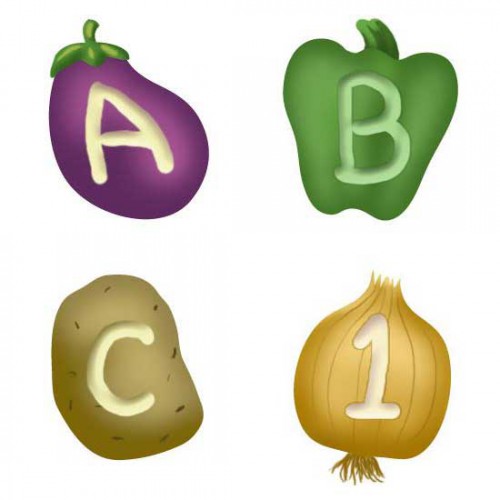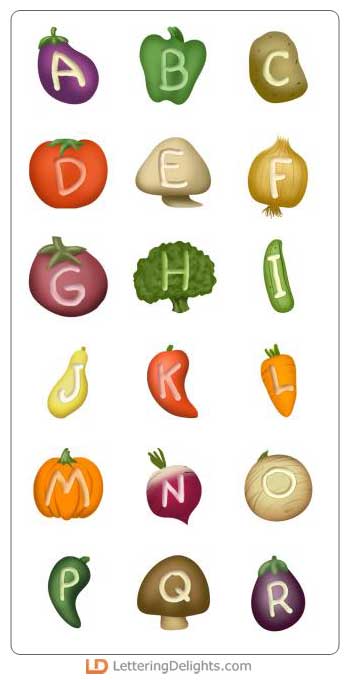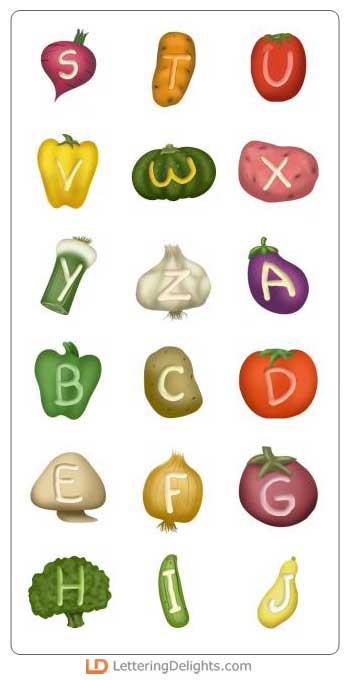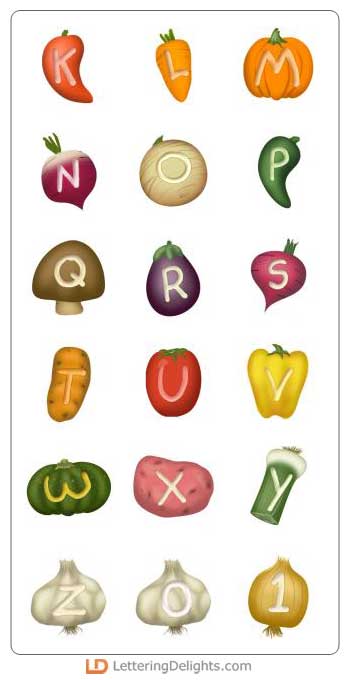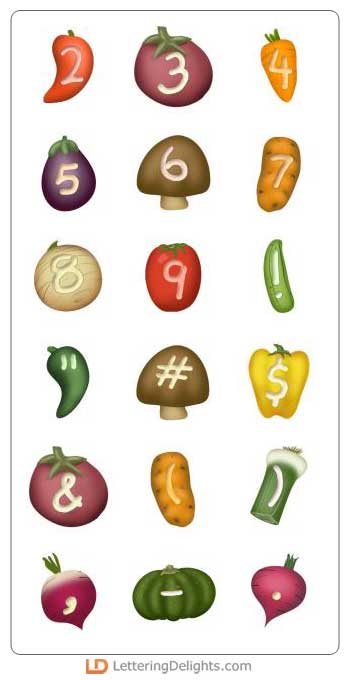
The letters of this alphabet are nestled inside a variety of garden vegetables (tomatoes, carrots, onions and peppers - to name a few). It's perfect for that garden scrapbook layout.